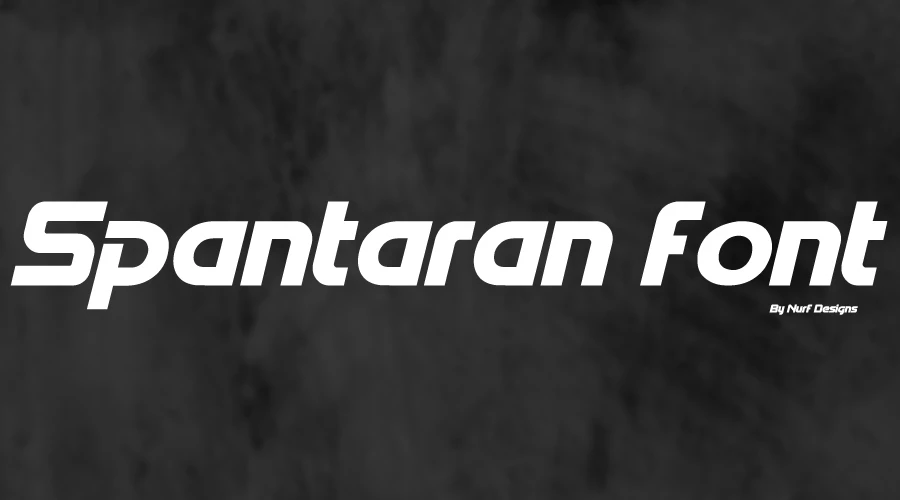
Spantaran is a sporty display typeface font designed by Nurf Designs. For its Italic & Bold characters, this font is very much powerful to collect the reader’s attention. You can use it on different platforms but it is very suitable for logos, titles, player names on the jersey, and more. Whatever it’s appearance Spantaran has a user-friendly typeface. Azonix and Connect are mostly similar to this.
Being a Sporty display typeface font, Spantaran is perfect for gaming poster and Jersey name. However, it can also be used in the following lists.
• Banner
• Title
• Movie Poster
• Sports Item
• Brochure
• Logo design
• YouTube Thumbnail and Chanel art.
StyleModern, Sporty, Display
What type of font is Spantaran?
Ans: Spantaran is a sporty display typeface font with Italic & Bold character.